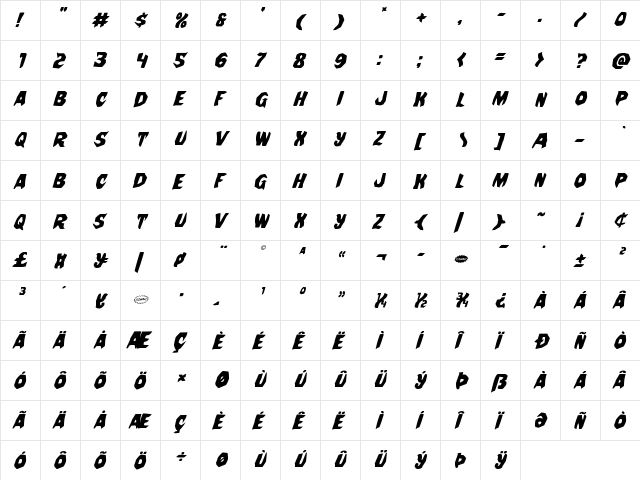
Nightchilde Staggered Italic Italic Font Preview
Design Context for Nightchilde Staggered Italic Typeface
Nightchilde Staggered Italic has an approachable, lighthearted character — its loose, expressive forms are well-suited to children's content, casual branding, and fun-first design. The dynamic lean of this cut emphasises speed and emphasis in any layout.
Font Pairing: Pairs well with a rounded or humanist sans for body copy, maintaining the friendly tone without relying on Nightchilde Staggered Italic to carry extended reading.
Pro Tip: Use Nightchilde Staggered Italic at larger display sizes where its expressive character can land. Pair with a clean, simple sans for body copy to maintain readability.